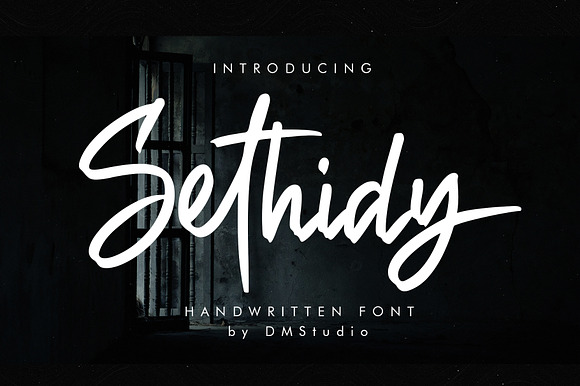
Sethidy Handwritten Font
Sethidy Handwritten Font by dmLetter is a font selected for branding, posters, packaging, typography.
Why Sethidy Handwritten Font is worth a look
Sethidy Handwritten Font by dmLetter fits naturally into Branding, posters, packaging, typography.